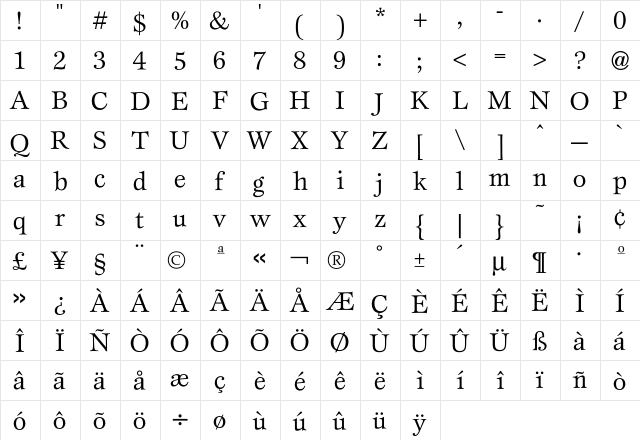
Esprit Book
Design Context for Esprit Typeface
Esprit takes a measured approach to typography — its balanced proportions and neutral character make it a reliable workhorse for both digital and print work.